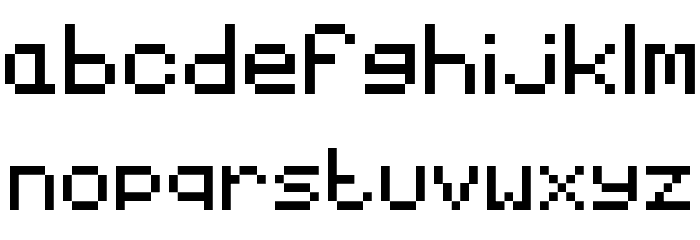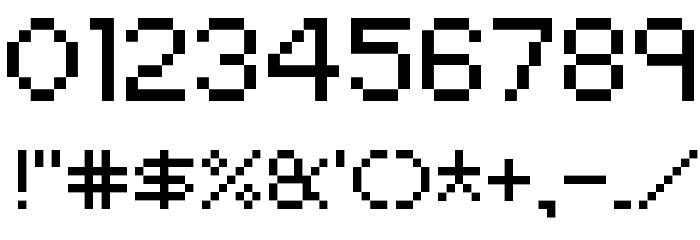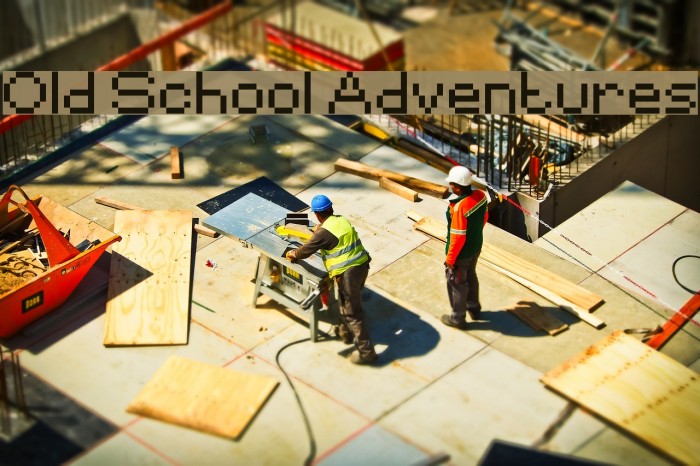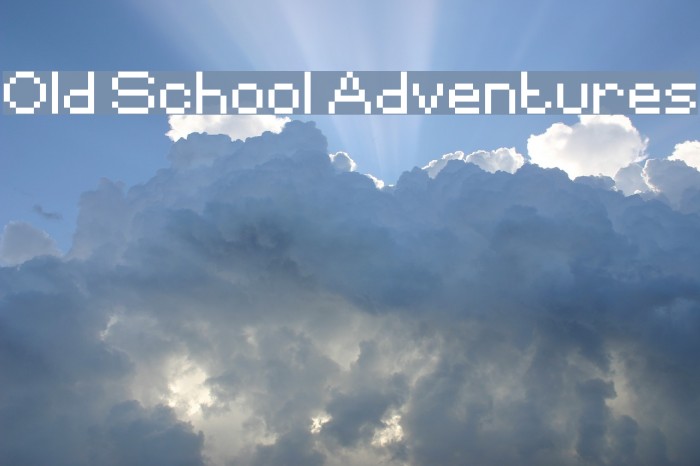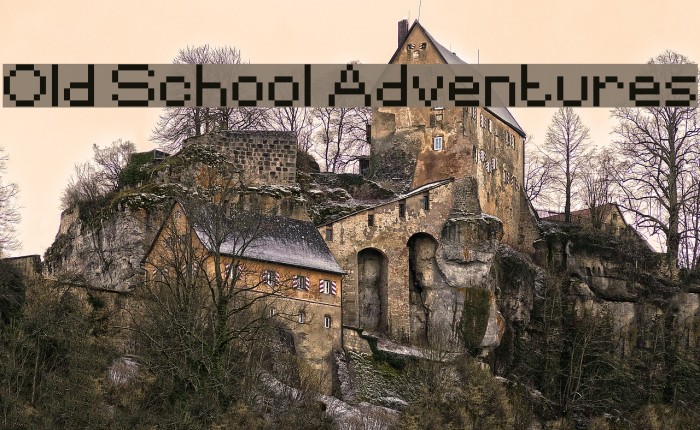
Old School Adventures Font
This font embodies a retro, pixelated style reminiscent of early digital and arcade games. Each character is constructed with a grid-like, blocky appearance, giving it a distinctly nostalgic and digital feel. The uppercase and lowercase letters maintain a consistent height, contributing to a uniform and structured look. Numbers and special characters follow the same pixelated design, ensuring visual coherence across all elements. The font's simplicity and geometric form make it ideal for projects that aim to evoke a sense of nostalgia or pay homage to classic video game aesthetics.
A retro, pixelated font inspired by early digital and arcade games.
- Proposed Projects: Ideal for retro video game designs, digital art projects, and nostalgic branding.
- Overall Style: Vintage